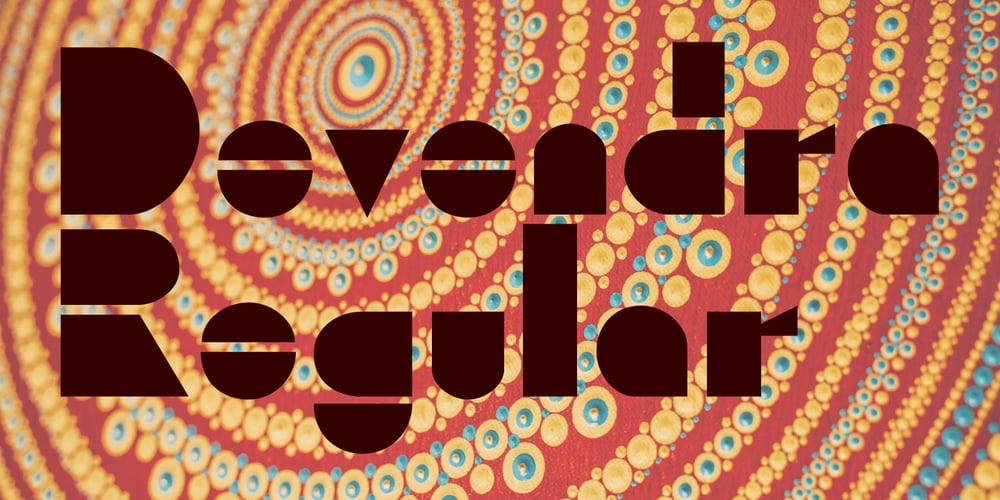
Devendra
Devendra font
Devendra Font Family was designed by Jordan Davies and published by Wooden Type Fonts. Devendra contains 1 styles and family package options. A very distinctive style of font, in a kind of art deco style form the ’30s. This font is unique in that there are no open, negative spaces in glyphs such as upper and lower case o, or p, or others which would usually have them. Instead the glyphs are solid. The only letters or glyphs which have triangular sides are A and V, X, and Y. This is unusual.